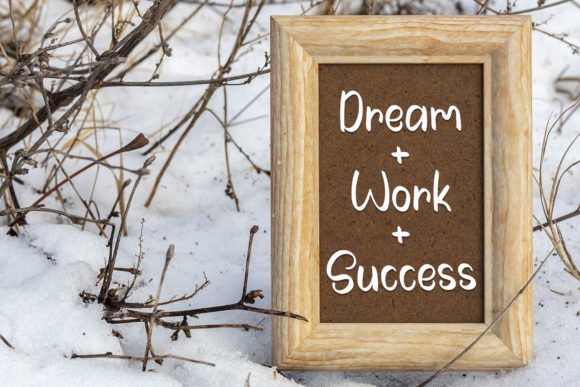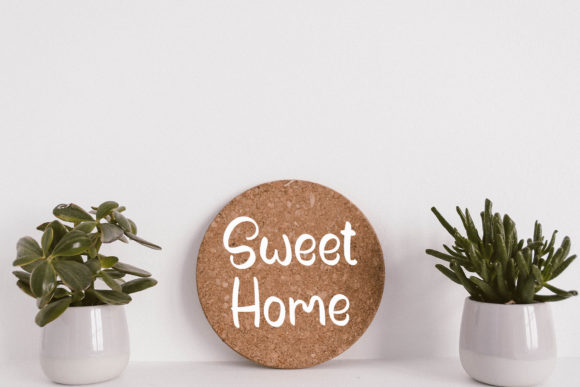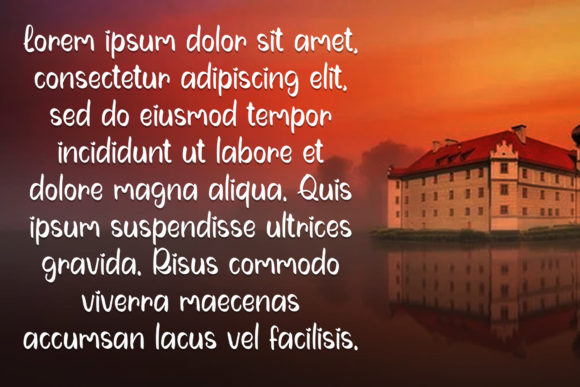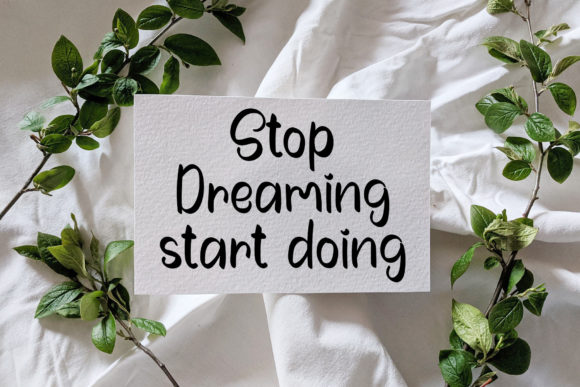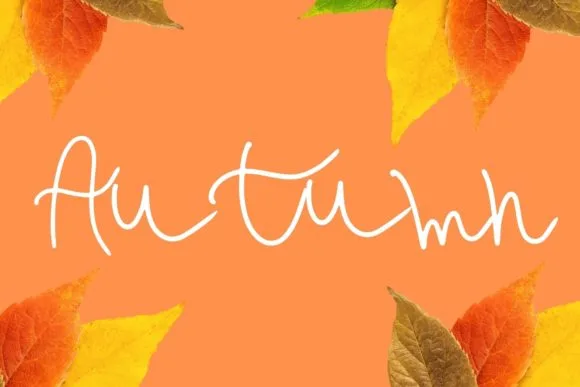
Castle Font
About Castle Font
Introducing “Castle,” a unique and elegant font designed to bring a touch of sophistication to your projects. This font looks great on wedding invitations, greeting cards, billboards, logos, business cards, and any other design that calls for a handwritten touch, making it a versatile and stylish choice.
With its unique and elegant design, “Castle” adds a distinctive flair to your creations. The handwritten touch imparts a personal and refined quality, making it well-suited for a variety of design applications where an elegant and sophisticated appearance is desired.
Imagine “Castle” as the perfect font for your wedding invitations, greeting cards, and business materials. Its versatility allows it to adapt seamlessly to different design contexts, enhancing the overall aesthetic of your projects with a touch of elegance.
In summary, “Castle” is more than just a font; it’s a unique and elegant script designed to elevate the visual appeal of your creations. Let it be the perfect choice for adding sophistication to your wedding invitations, greeting cards, and beyond, creating a lasting impression with its distinctive style.